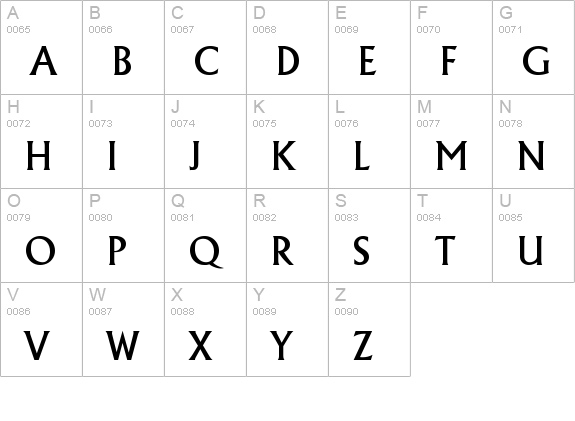
Alberta Regular is the standard, neutral variant in the Alberta typeface family \xE2\x80\x94 well suited to general body text, paragraphs, and standard typographic work.
Alberta Regular font is a timeless and versatile typeface that exudes elegance and sophistication. Its clean lines and classic design make it perfect for a wide range of projects, from branding to editorial design. The Alberta Regular font strikes the perfect balance between traditional and modern, making it a go-to choice for designers looking to add a touch of refinement to their work. Best of all, Alberta Regular font is available for free download at FontsMarket.com. This means that you can access this high-quality font without any cost, making it a valuable addition to your font library. Whether you're working on a personal project or a client's design, Alberta Regular font is sure to elevate your work with its timeless appeal. Download it today and see the difference it can make in your designs.